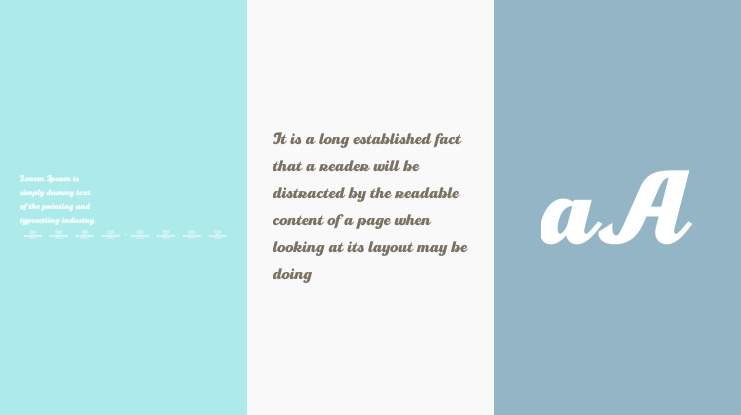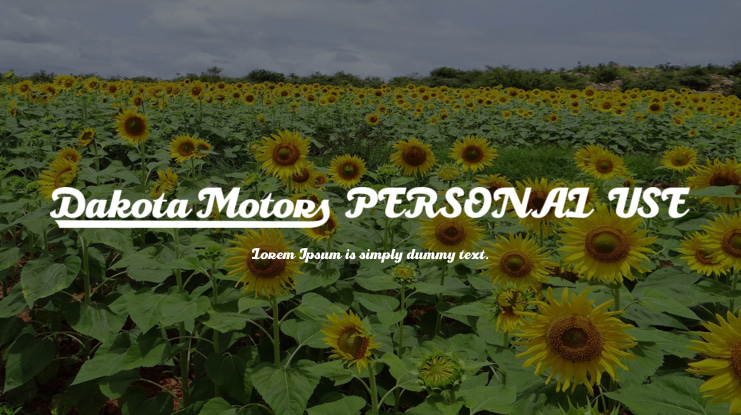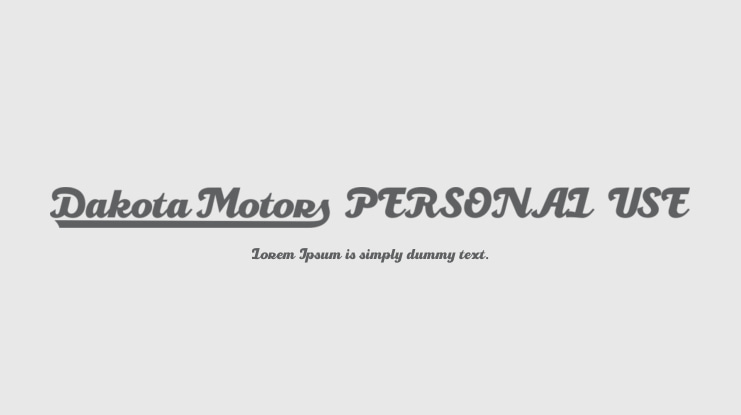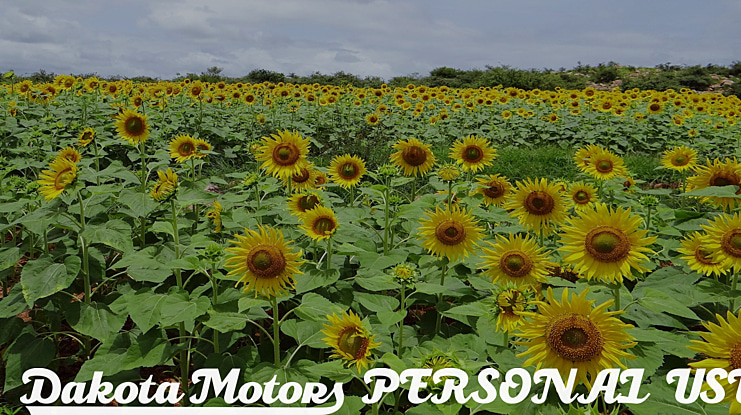
Dakota Motors PERSONAL USE Font
Dakota Motors is a retro script font. It is expressive, and is constructed of sharp strokes and heavy letterforms. Use it for a cool logotype or headline to give your work that genuine look.
Use underscore _ to make a swash.
Example: Puch_
Use multiple underscores to make longer swashes.
Example: RaceCar_____